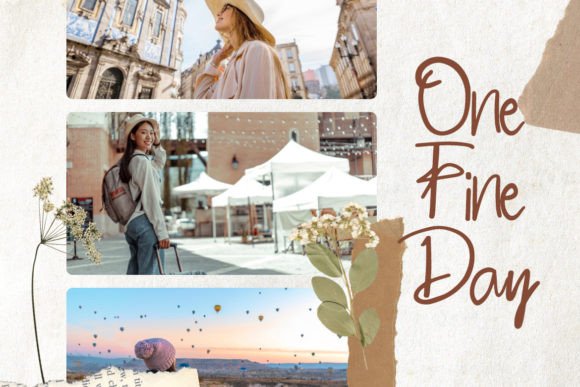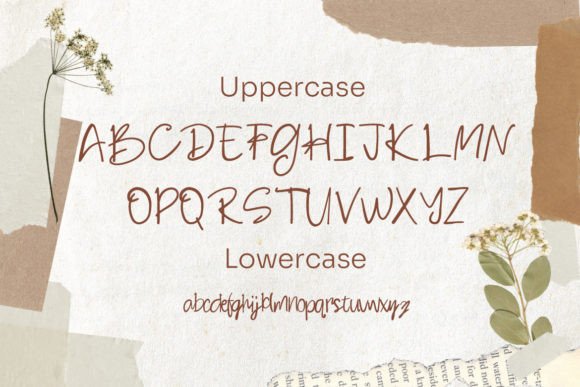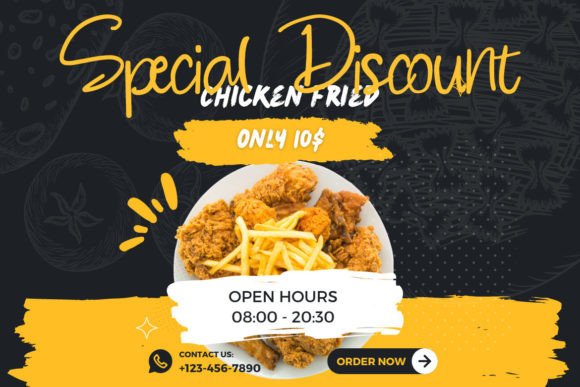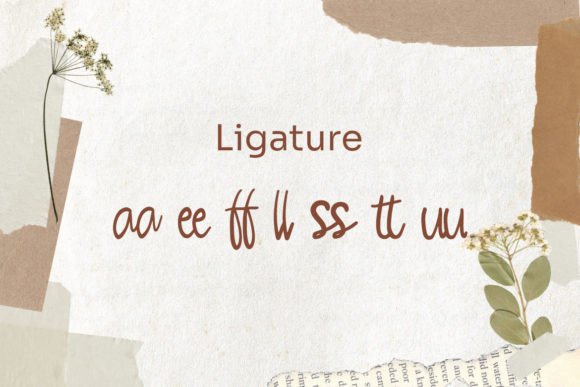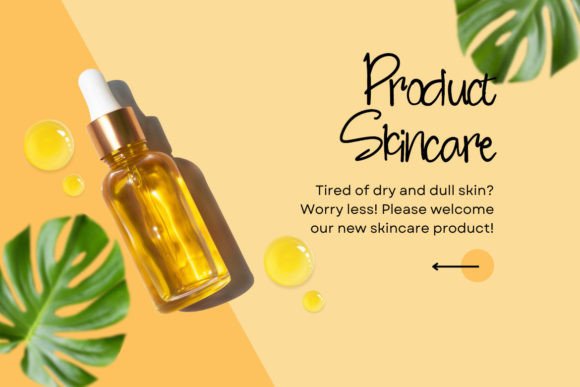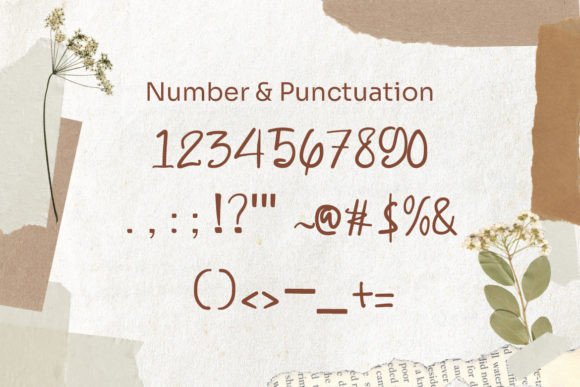
Basshley Smelya Font: Elevate Your Designs with Elegance and Flair
Are you a designer or crafter looking for a font that can add a touch of sophistication and whimsy to your creative projects? Look no further than the Basshley Smelya font. This delicate, elegant, and flowing handwritten font is sure to bring your ideas to life and set them apart from the rest.
The Beauty of Basshley Smelya
Basshley Smelya is a unique and captivating font that boasts a distinctive, hand-crafted feel. Its flowing lines and delicate curves evoke a sense of elegance and refinement, making it perfect for projects that require a touch of sophistication. Whether you’re designing a logo, creating a brand identity, or crafting a one-of-a-kind invitation, Basshley Smelya is sure to impress.
What Makes Basshley Smelya So Special?
So, what sets Basshley Smelya apart from other fonts? Here are just a few reasons why this font is a cut above the rest:
• Delicate and Elegant: Basshley Smelya’s flowing lines and delicate curves give it a refined, sophisticated feel that’s perfect for high-end designs.
• Handwritten Charm: This font’s handwritten origins give it a unique, personal touch that’s sure to capture the attention of your audience.
• Versatile: Whether you’re designing a logo, creating a brand identity, or crafting a one-of-a-kind invitation, Basshley Smelya is versatile enough to adapt to any design need.
• Easy to Read: Despite its delicate nature, Basshley Smelya is surprisingly easy to read, making it perfect for both print and digital applications.
How to Use Basshley Smelya in Your Designs
Ready to add Basshley Smelya to your design toolkit? Here are a few ideas to get you started:
• Logos and Branding: Use Basshley Smelya to create a unique and memorable logo that sets your brand apart.
• Invitations and Stationery: Add a touch of elegance to your invitations, greeting cards, and other stationery with Basshley Smelya.
• Packaging and Labels: Use Basshley Smelya to add a personal touch to your product packaging and labels.
• Digital Designs: Basshley Smelya is perfect for digital designs, including social media graphics, blog headers, and more.
Tips for Pairing Basshley Smelya with Other Fonts
Want to create a truly stunning design with Basshley Smelya? Here are a few tips for pairing it with other fonts:
• Contrast with Bold Fonts: Pair Basshley Smelya with a bold, sans-serif font to create a striking contrast.
• Match with Script Fonts: Combine Basshley Smelya with another script font for a elegant, cohesive look.
• Use with Serif Fonts: Pair Basshley Smelya with a serif font for a classic, sophisticated feel.
In conclusion, Basshley Smelya is a beautiful, elegant, and versatile font that’s perfect for designers and crafters looking to add a touch of sophistication to their creative projects. With its delicate lines, flowing curves, and handwritten charm, Basshley Smelya is sure to bring your ideas to life and set them apart from the rest. So why wait? Add Basshley Smelya to your design toolkit today and discover the power of elegant, flowing script.